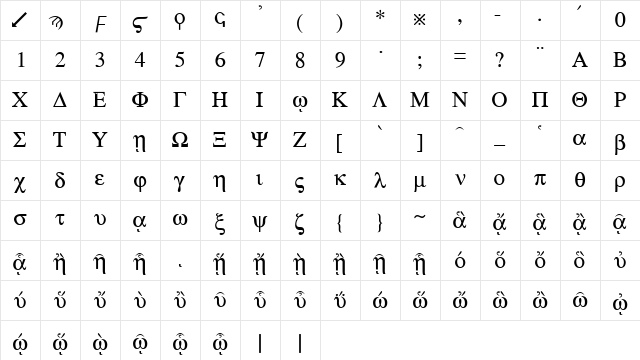
CSL-Greek Medium Regular
Design Context for CSL-Greek Medium
CSL-Greek Medium is a composed and adaptable typeface that performs quietly and consistently across a wide range of design contexts.